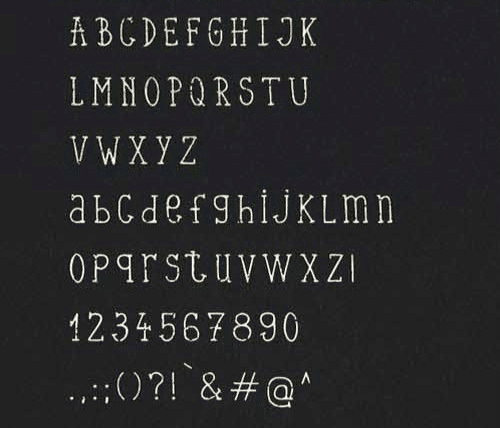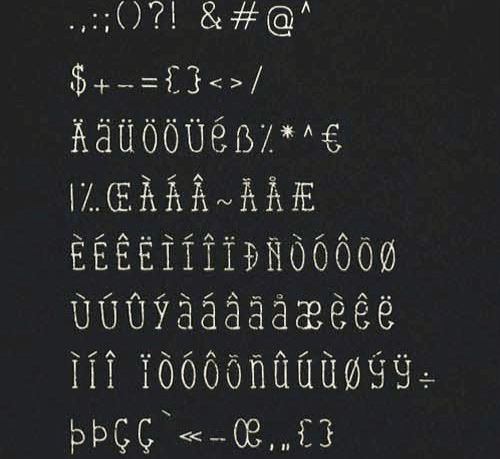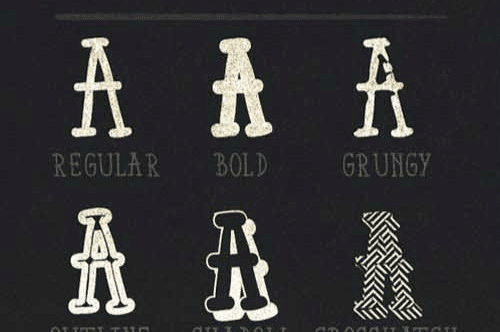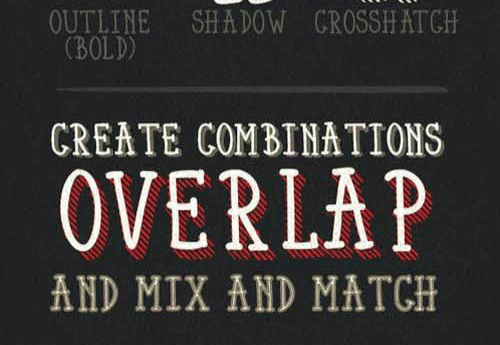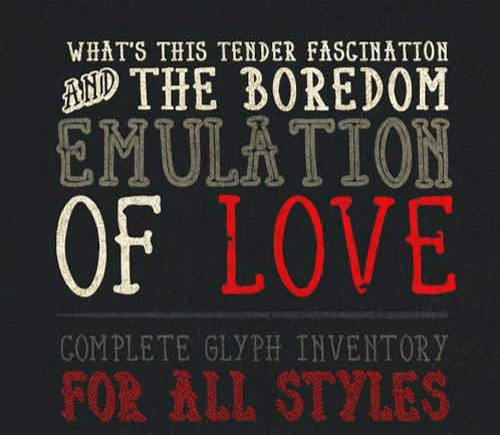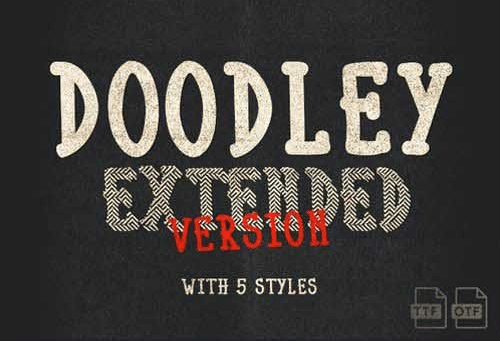
Doodley Font
Doodley Grungy Font
You can use Doodley Font in both graphic design, or for creating SVG cut files; as the font is optimized to work flawlessly with Silhouette Studio, Cricut Design Space, Scan n Cut, and other cutting machines.This one’s perfect for invitations, brochures, t-shirts, tote bags, mugs, or pretty much anything that has a surface.